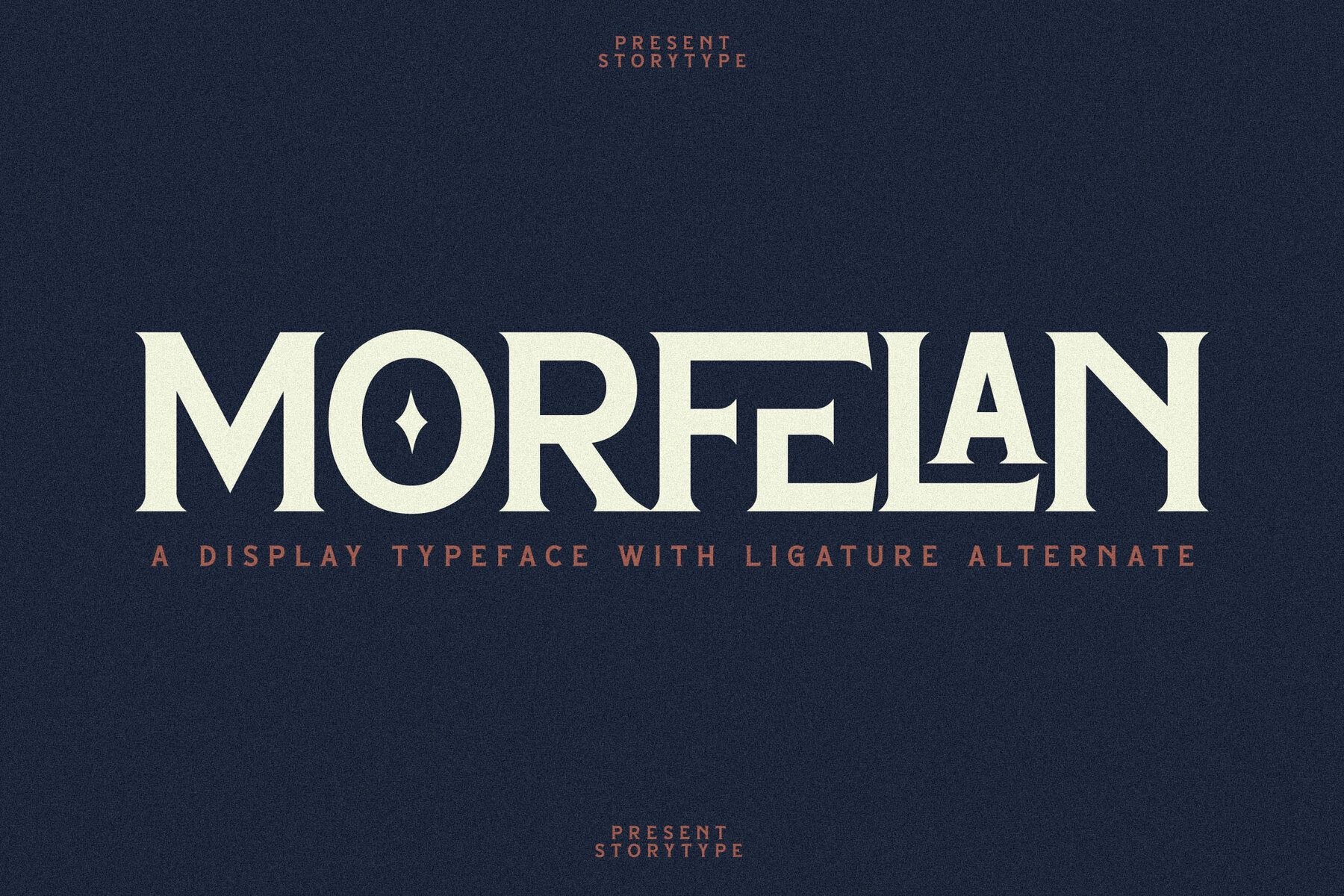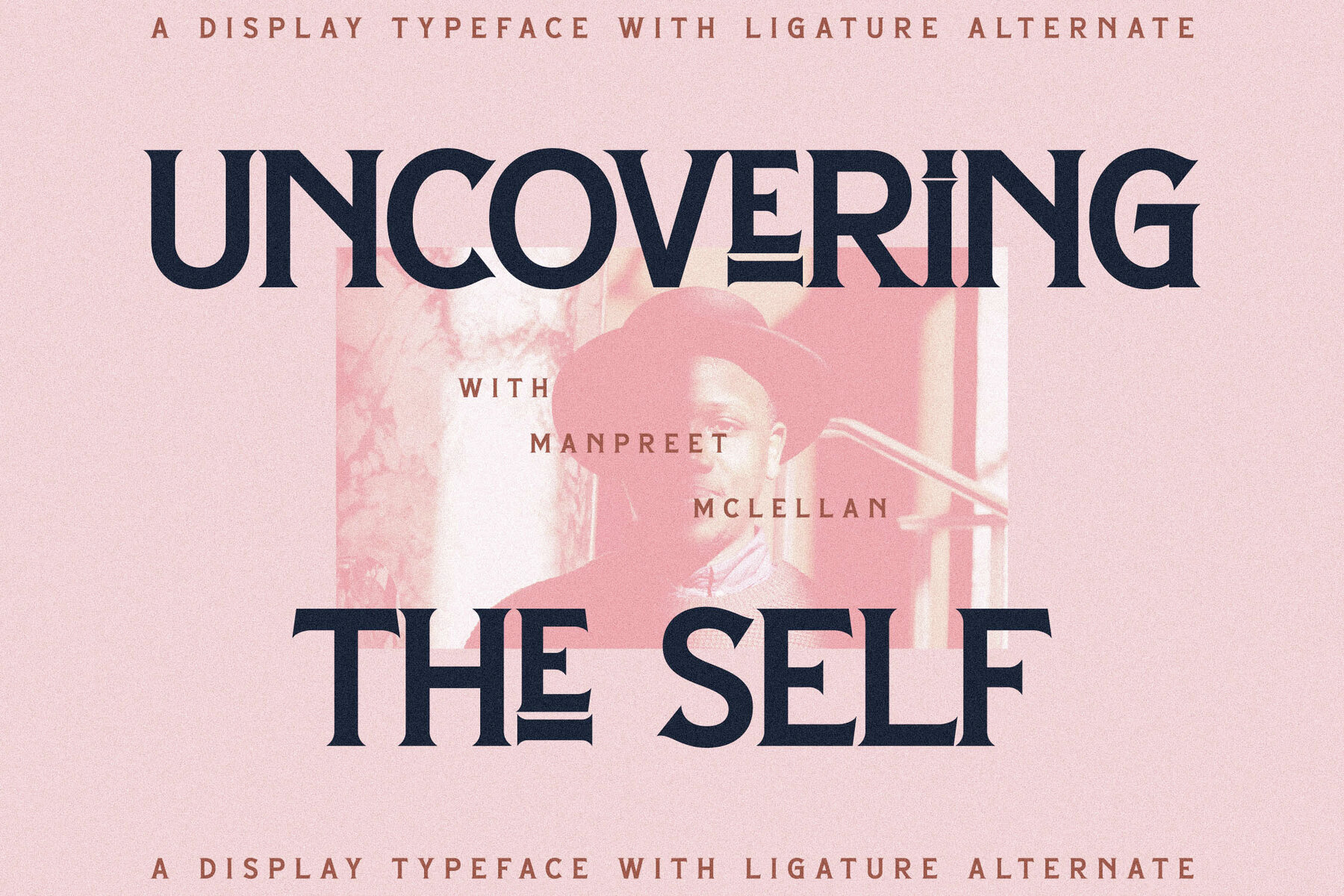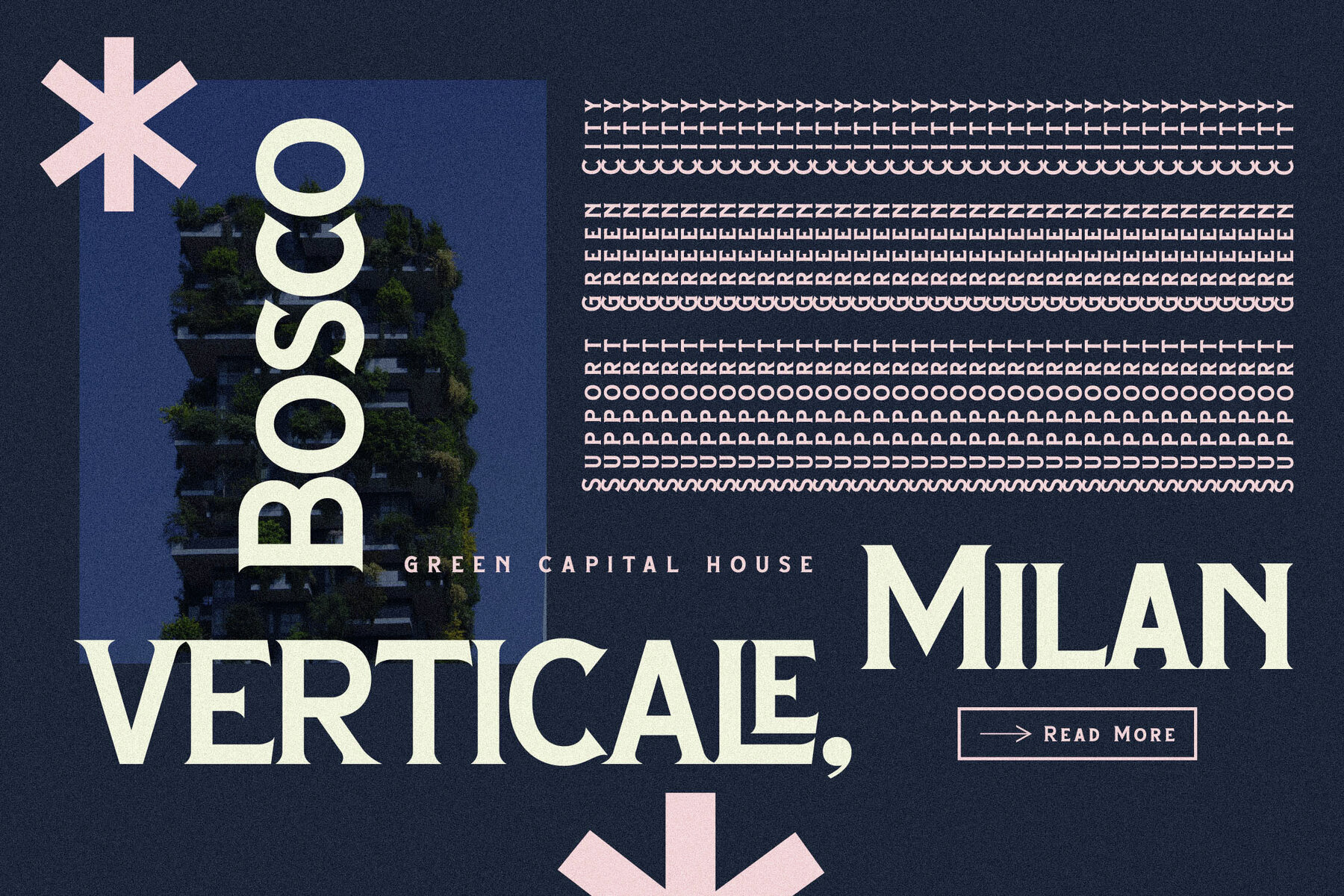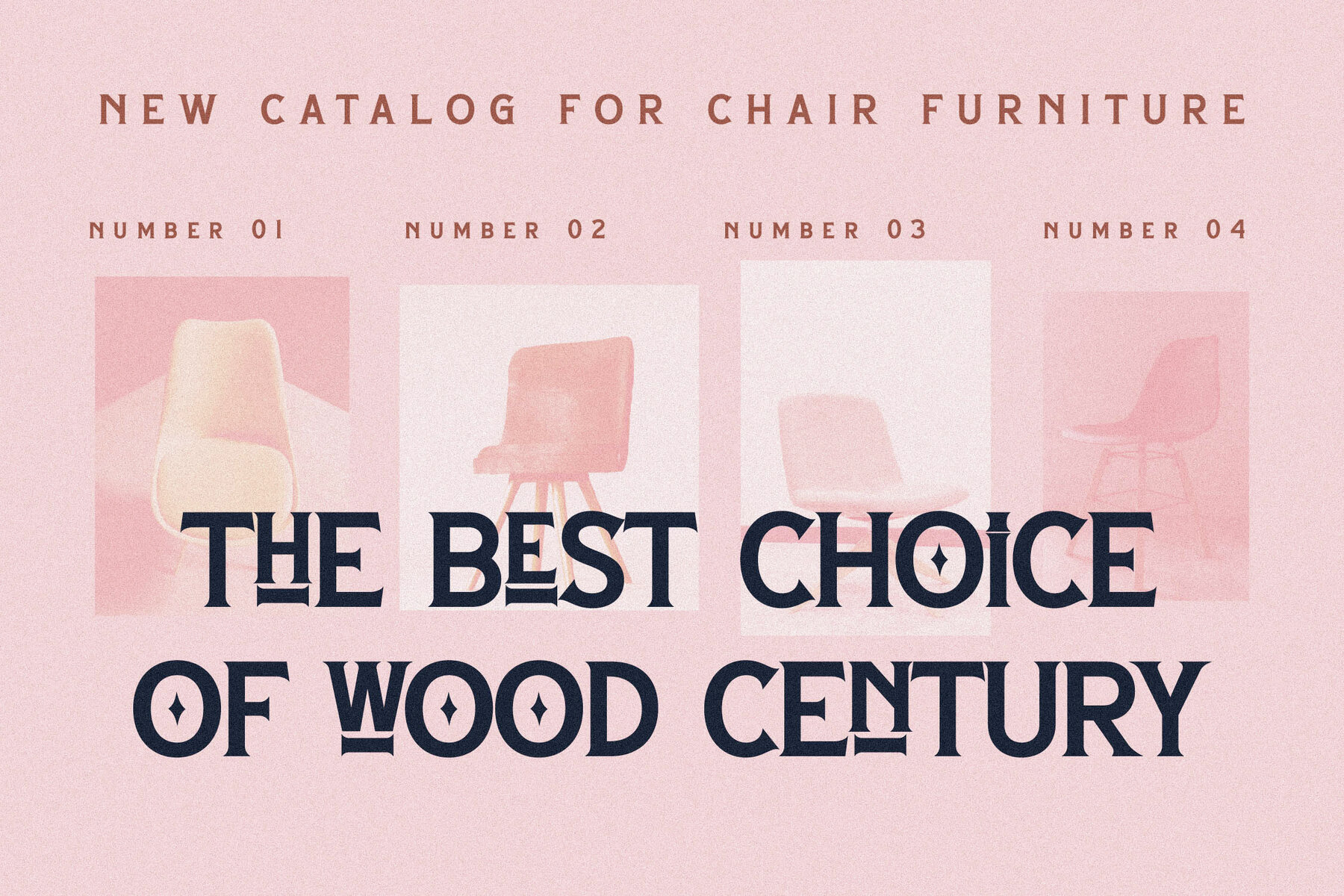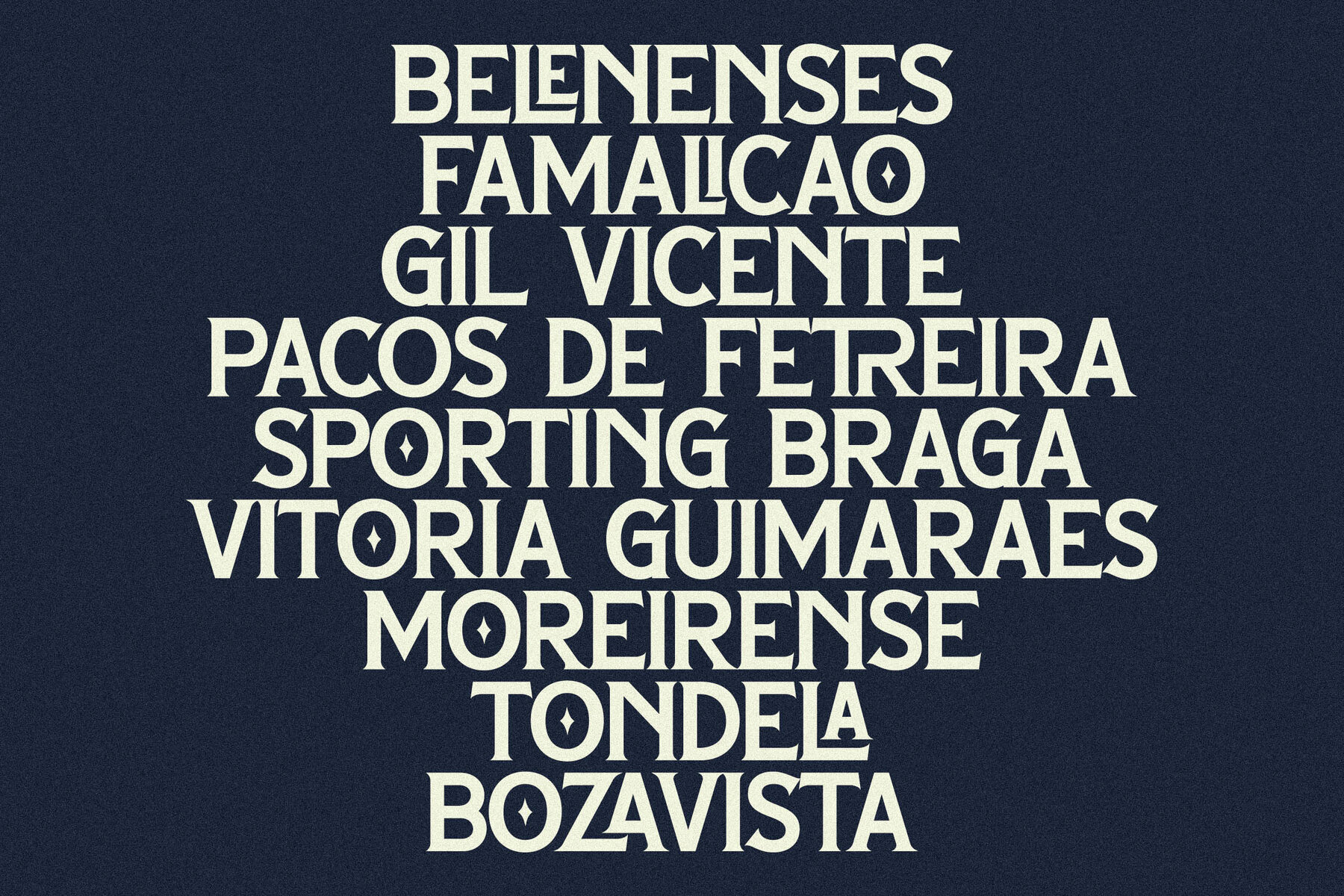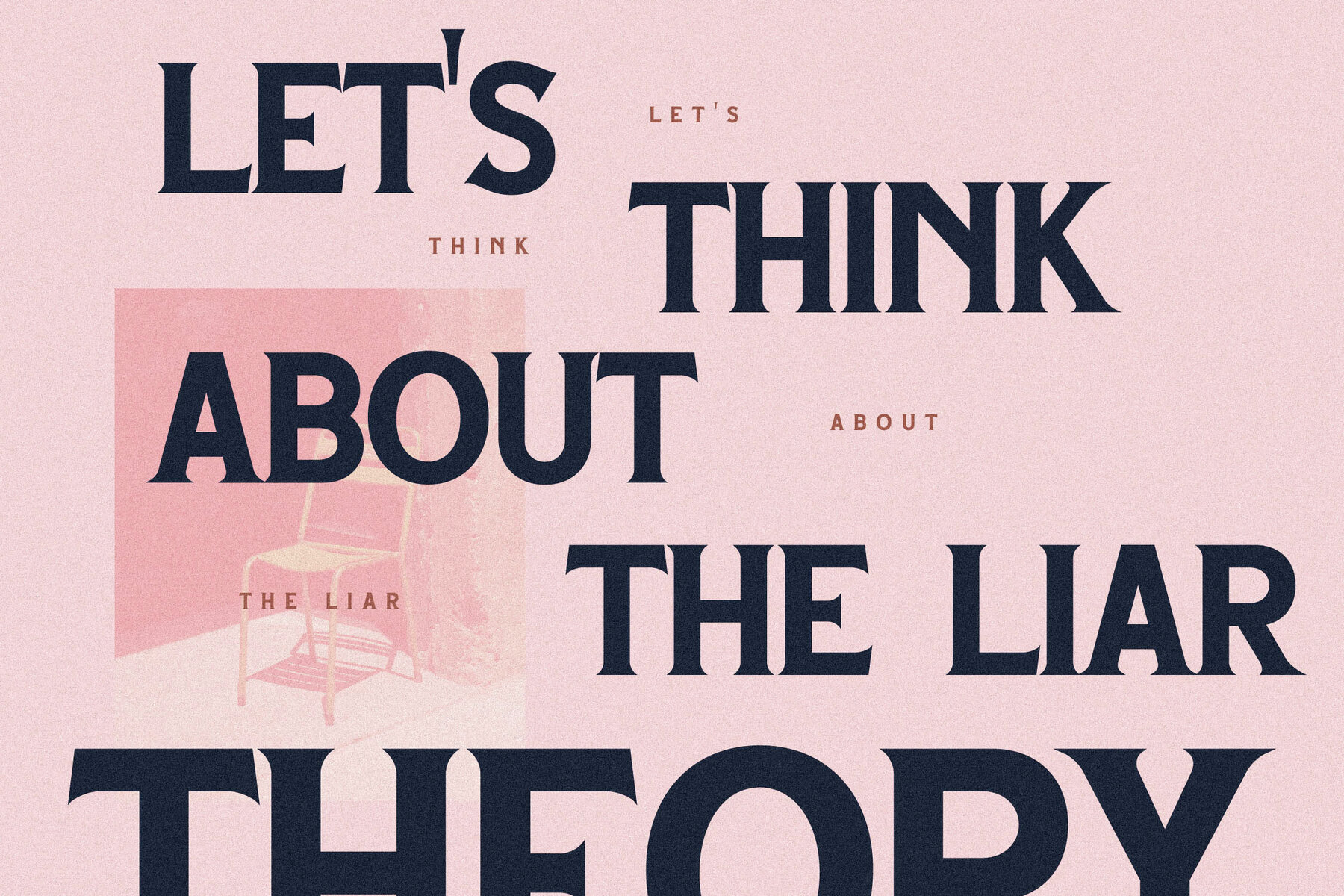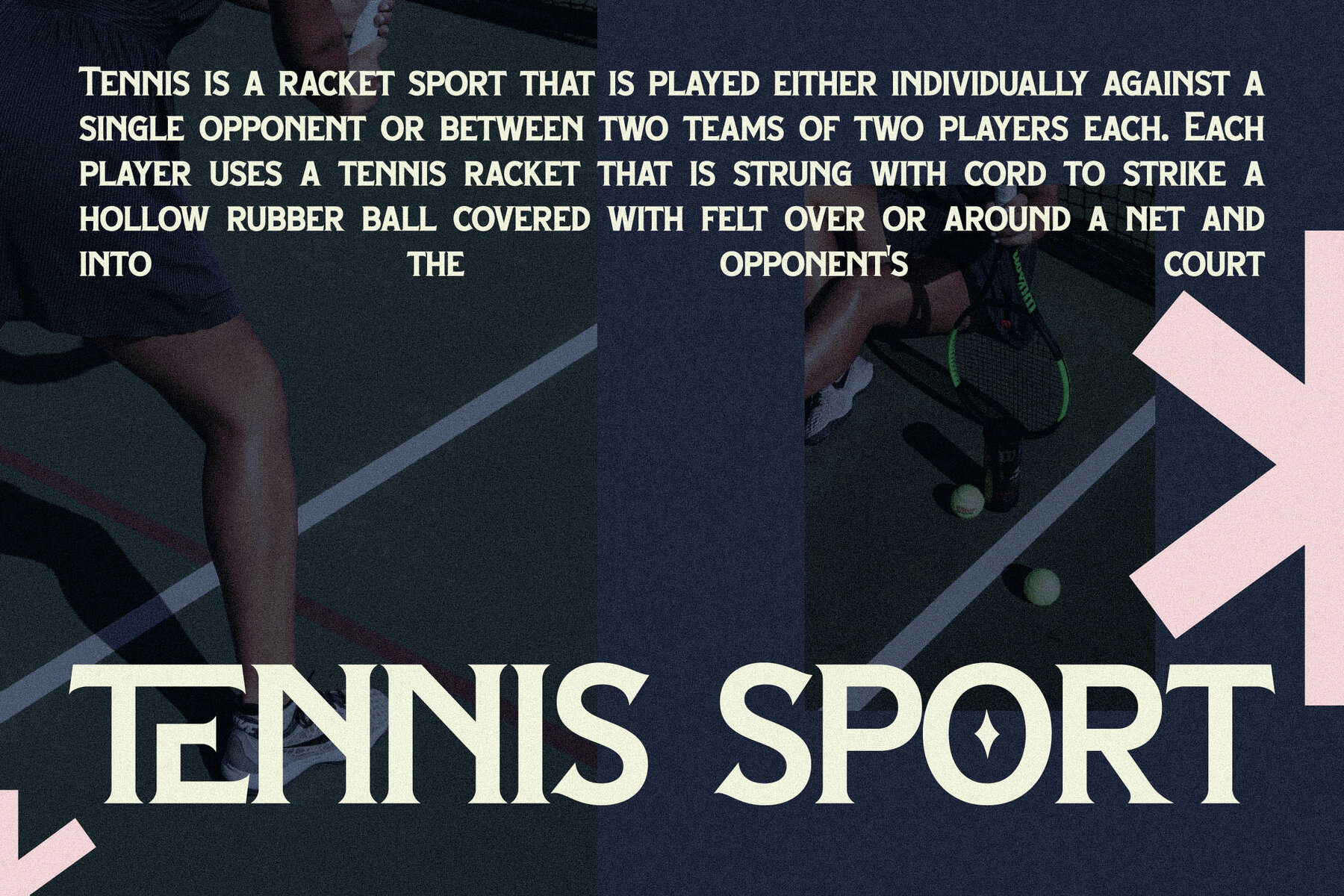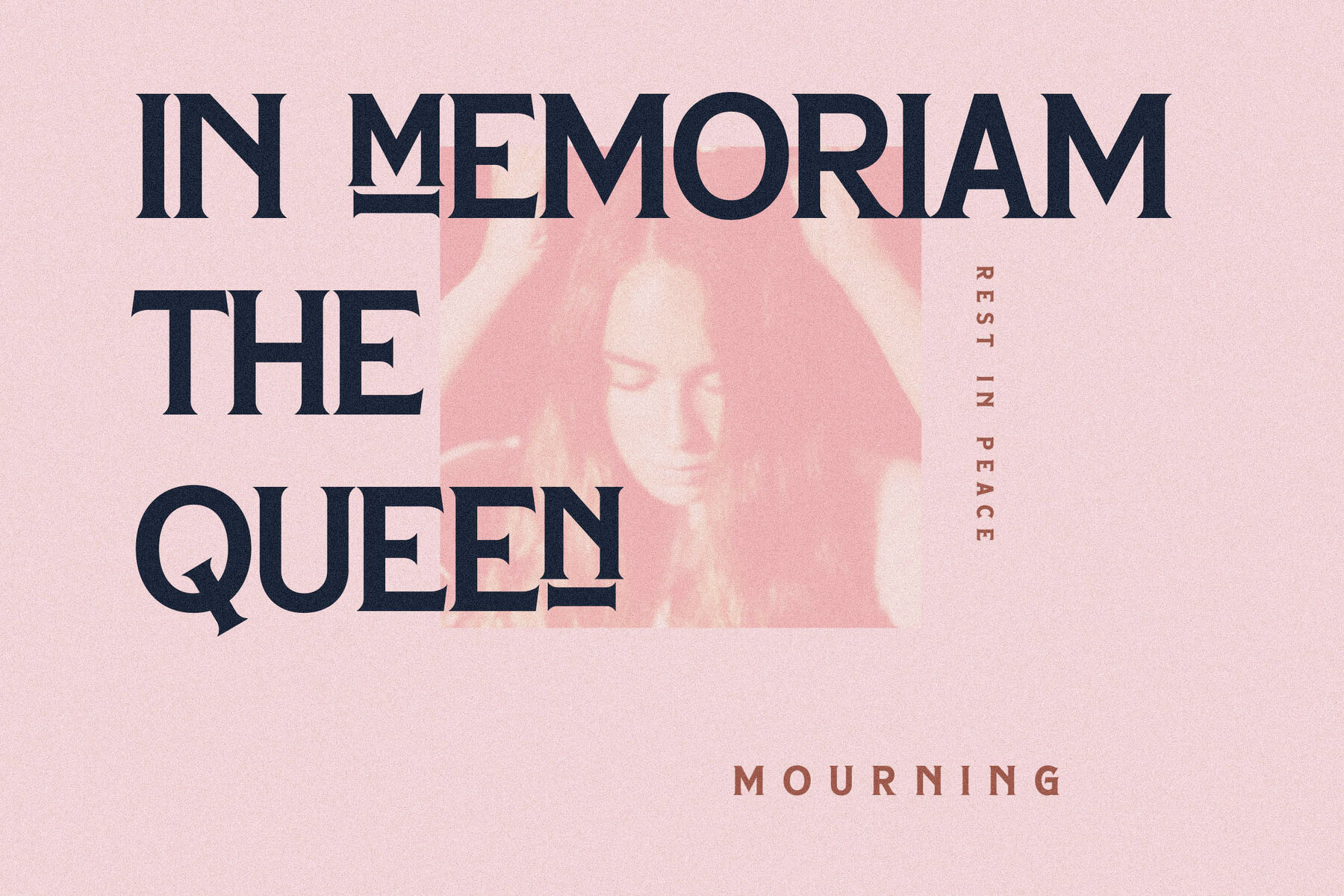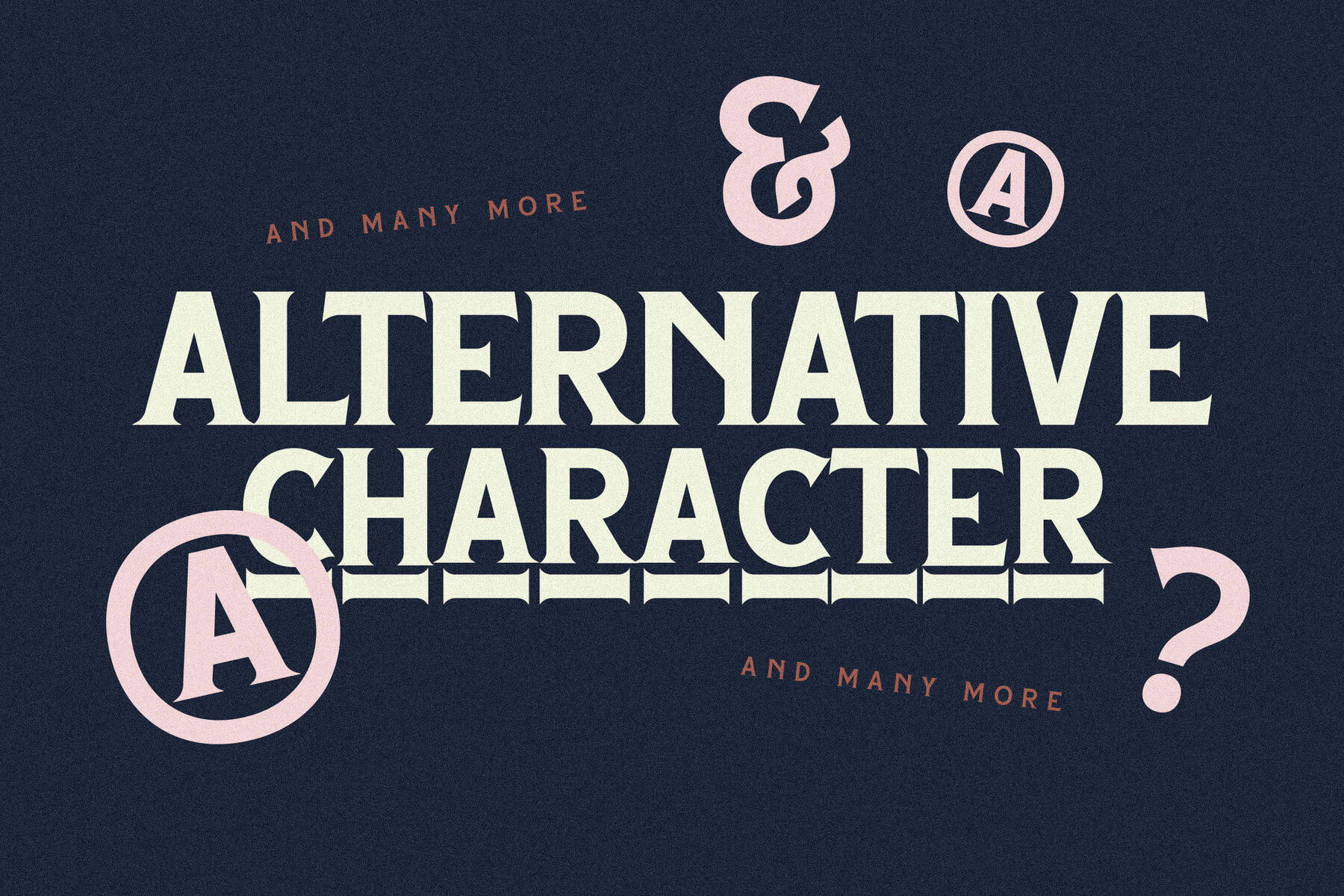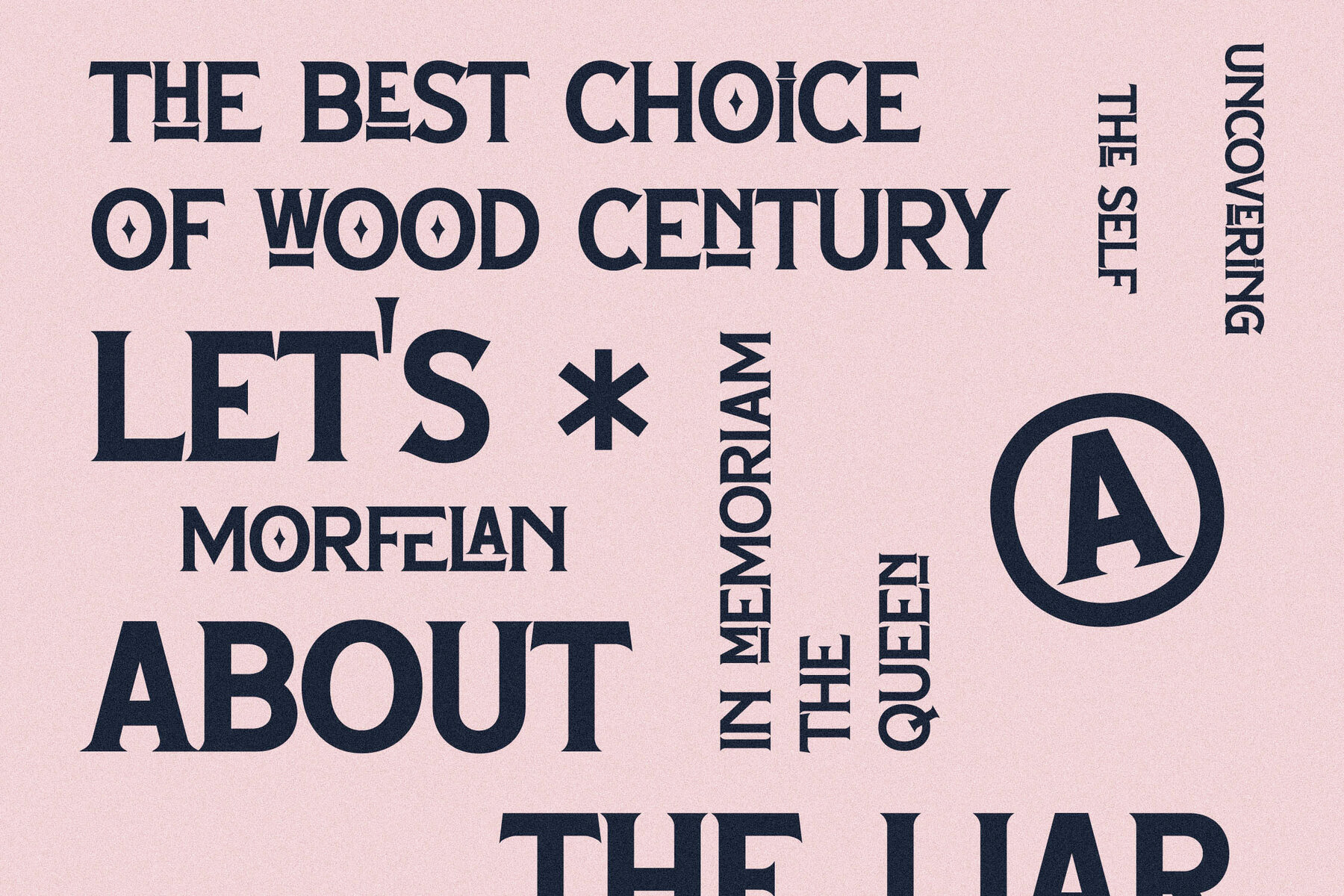
MORFELAN Font
Discover the unique charm of Morfelan, a modern serif typeface that merges classic elegance with a contemporary edge. Perfectly suited for crafting luxury logos, captivating book and movie titles, and elevating fashion brands. Whether it's a magazine spread, stylish apparel, or expressive lettering and quotes, Morfelan brings sophistication to every design.Morfelan Typeface